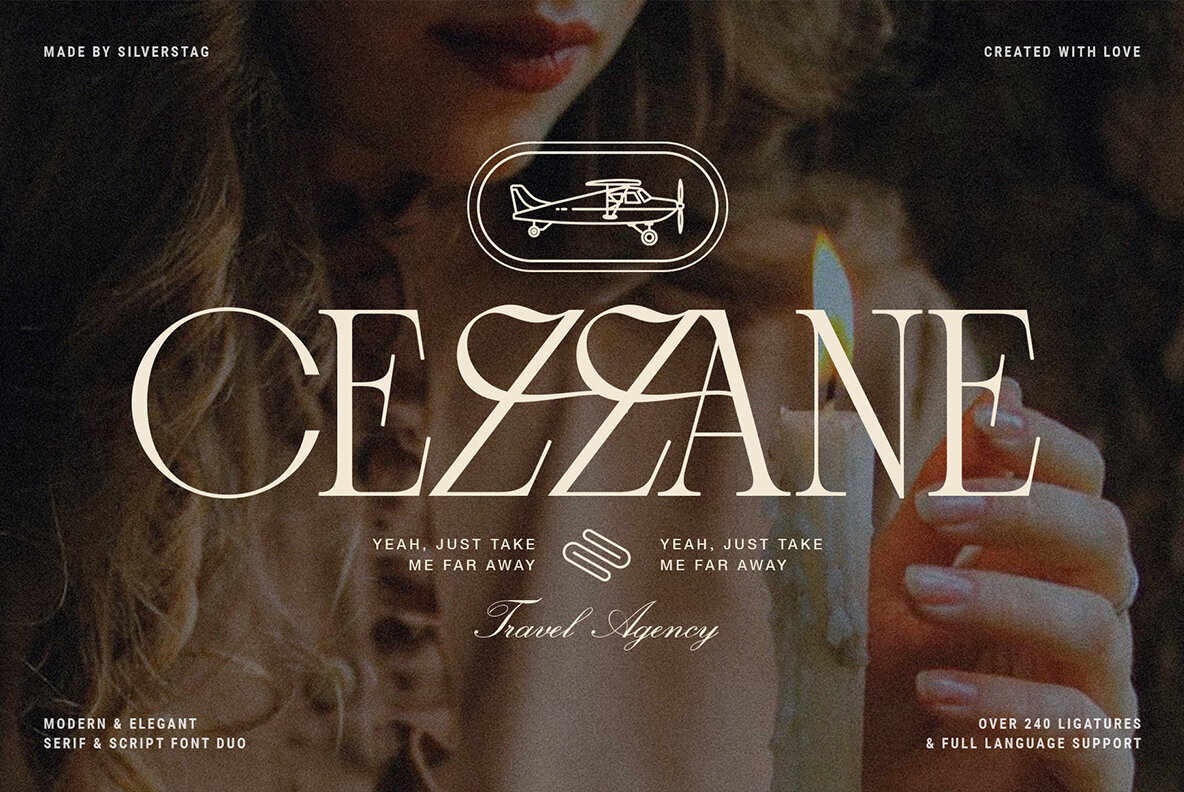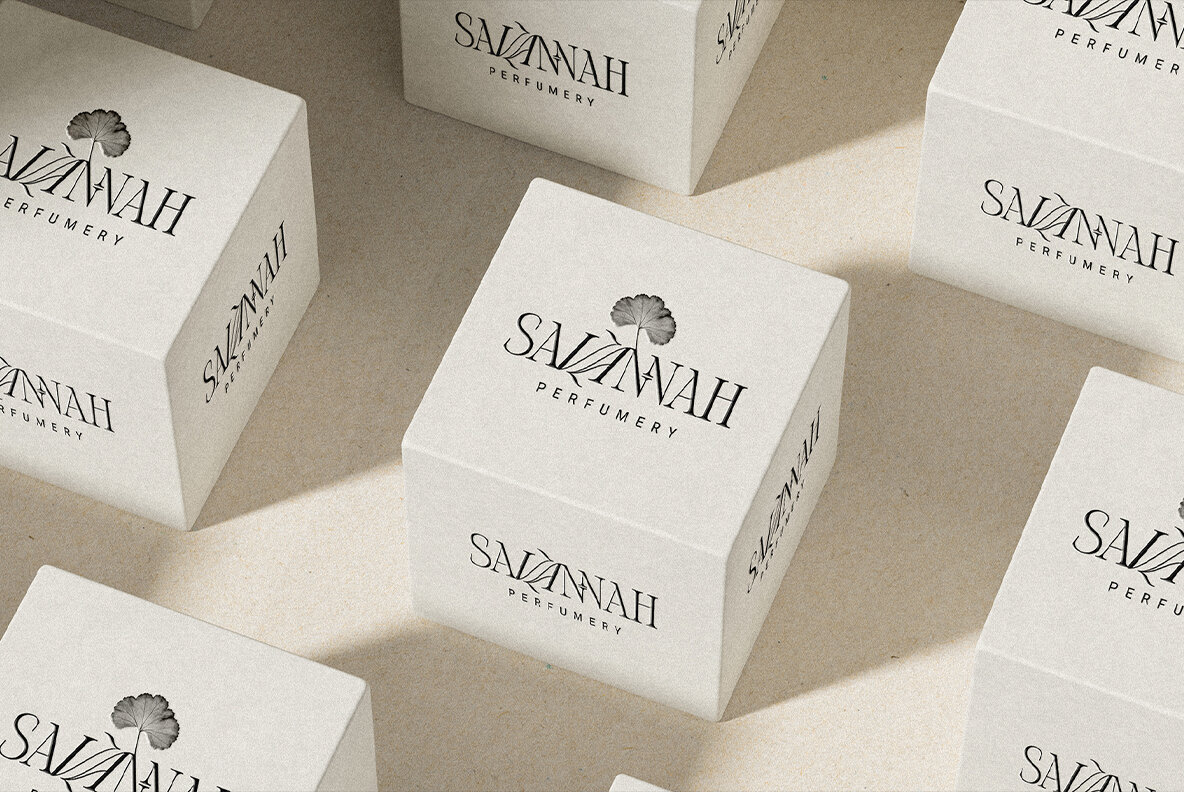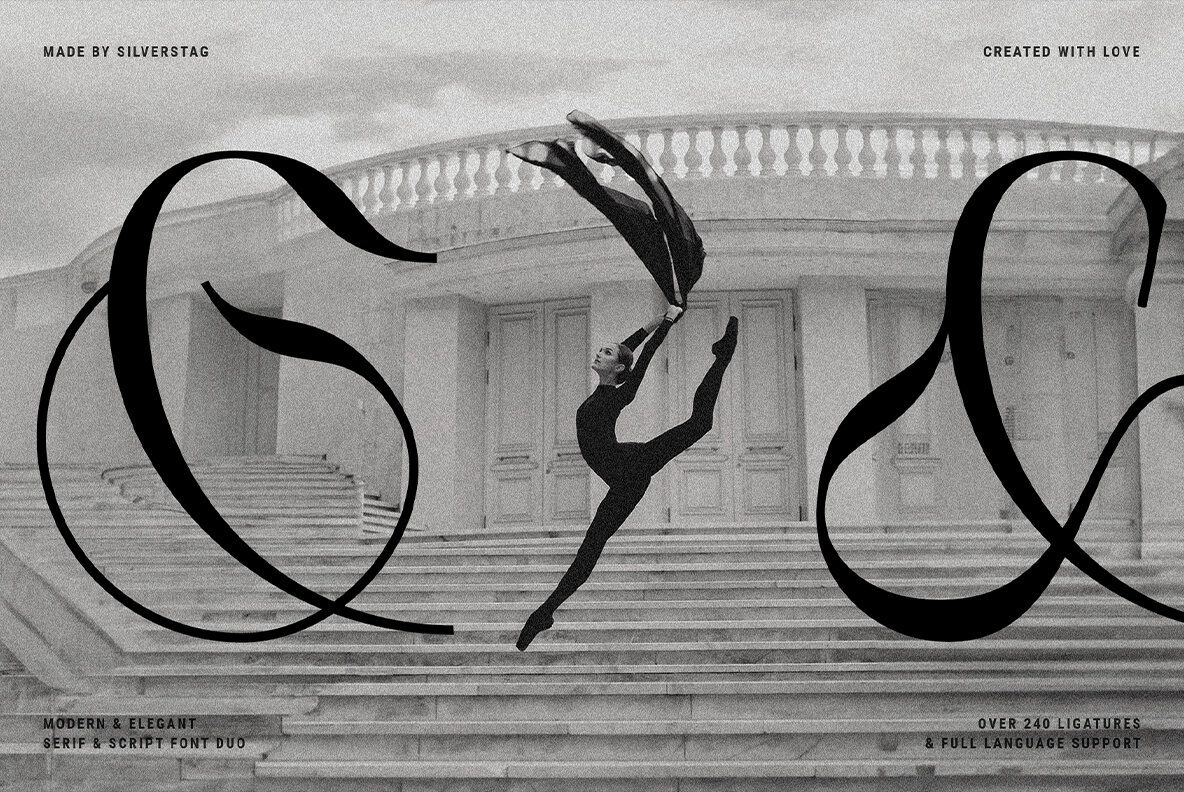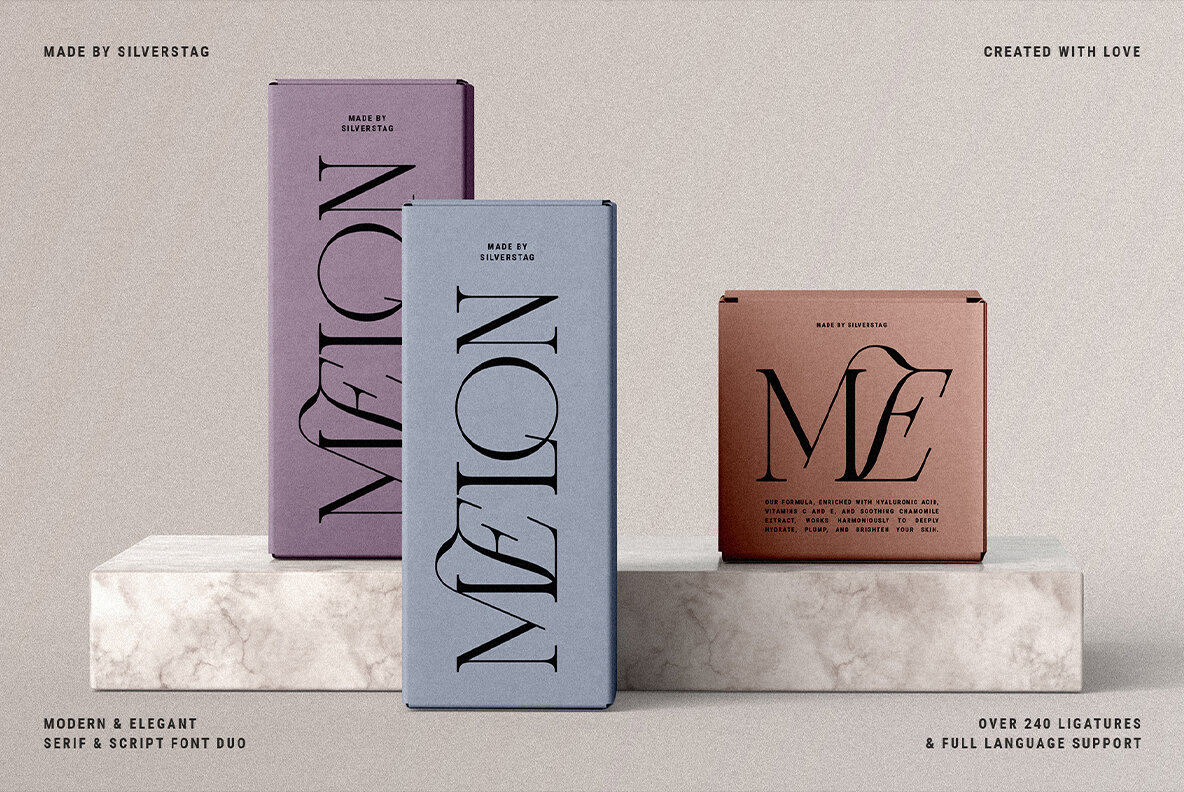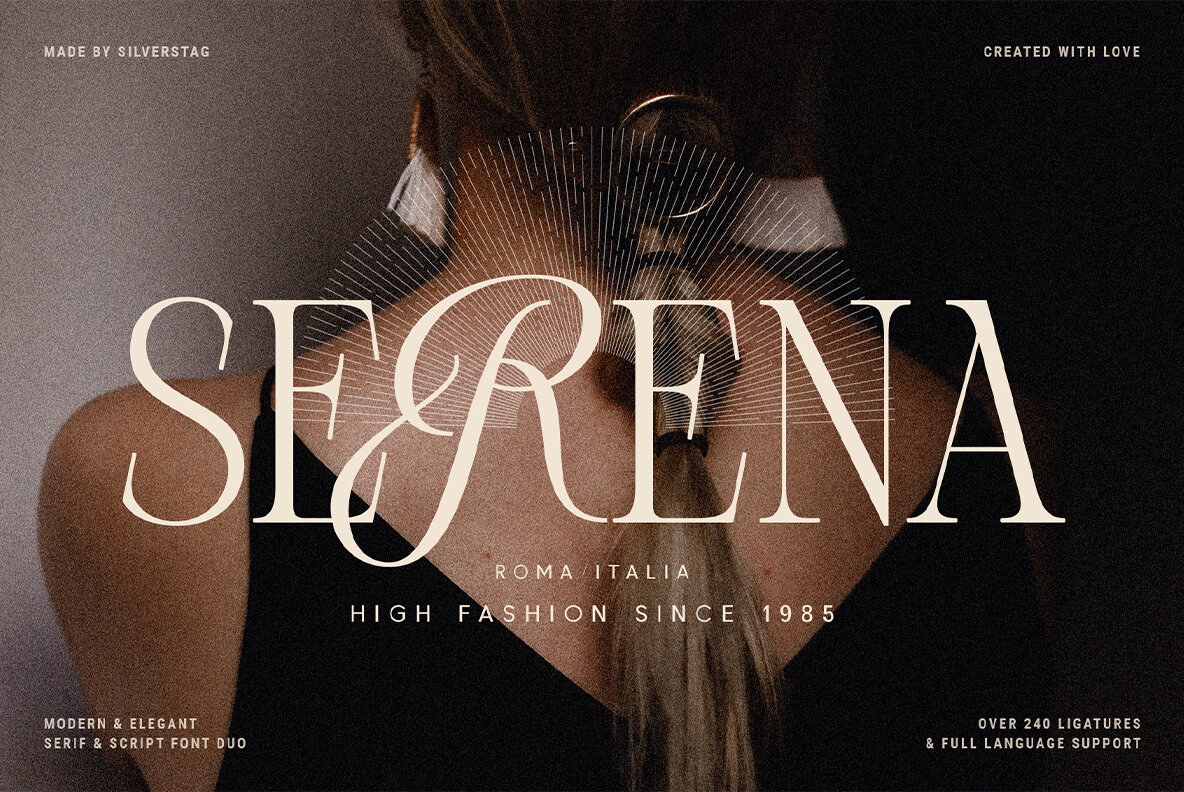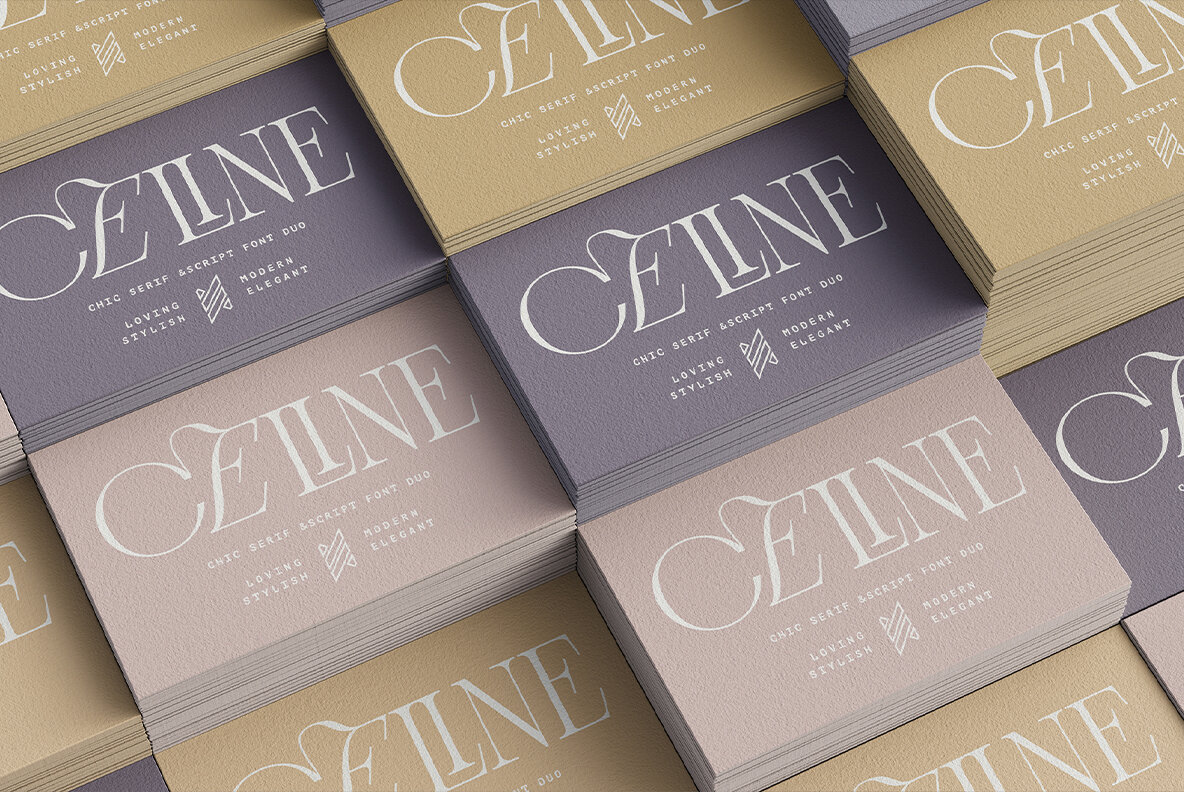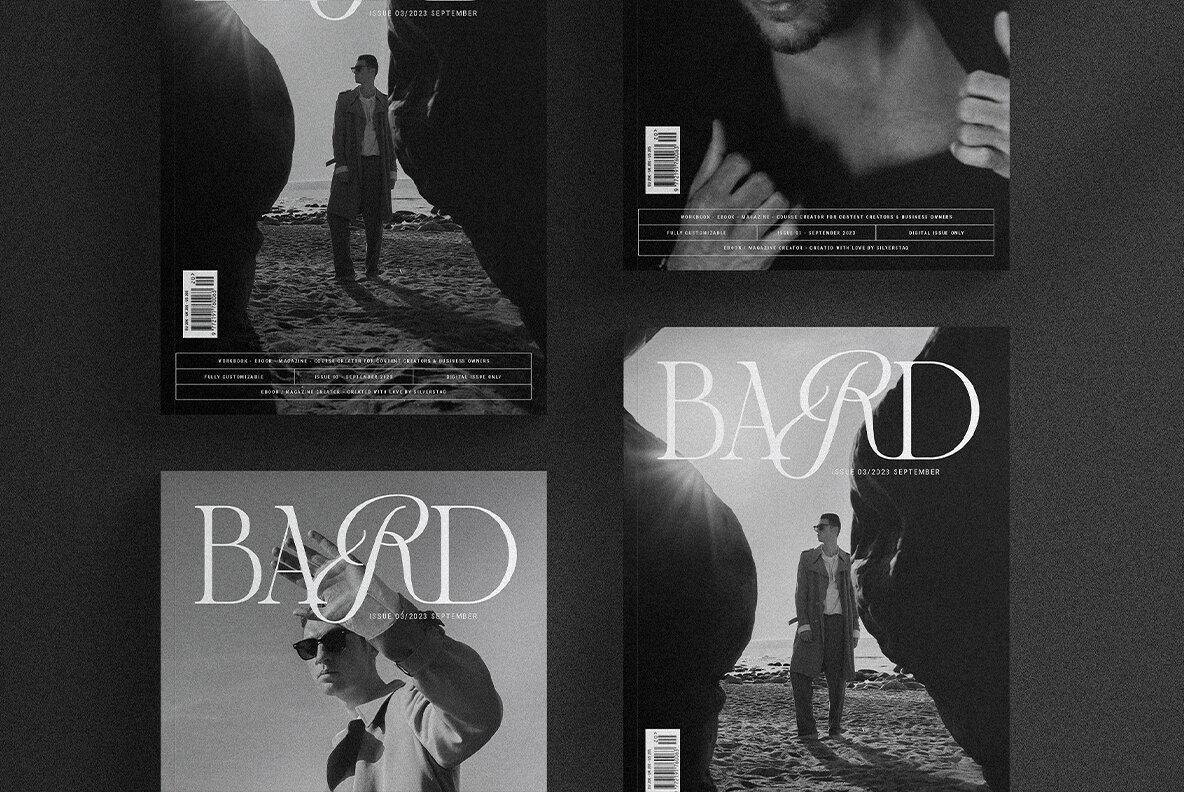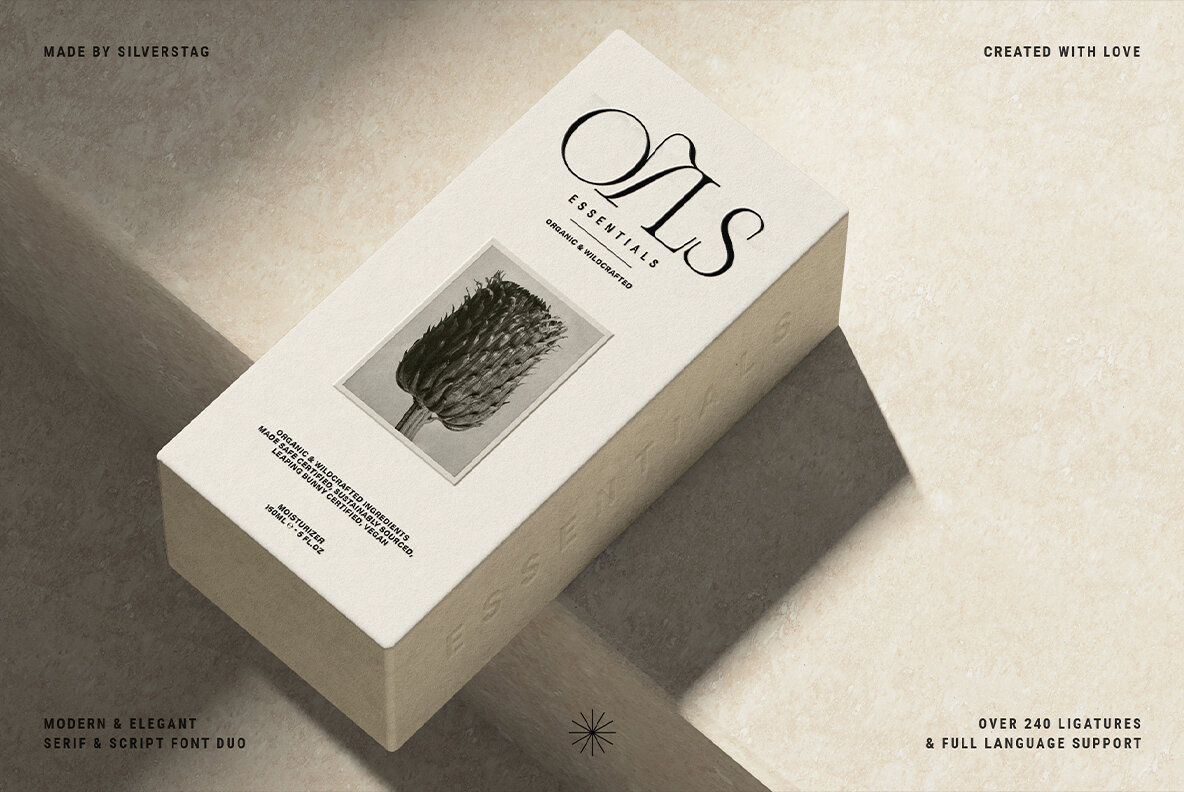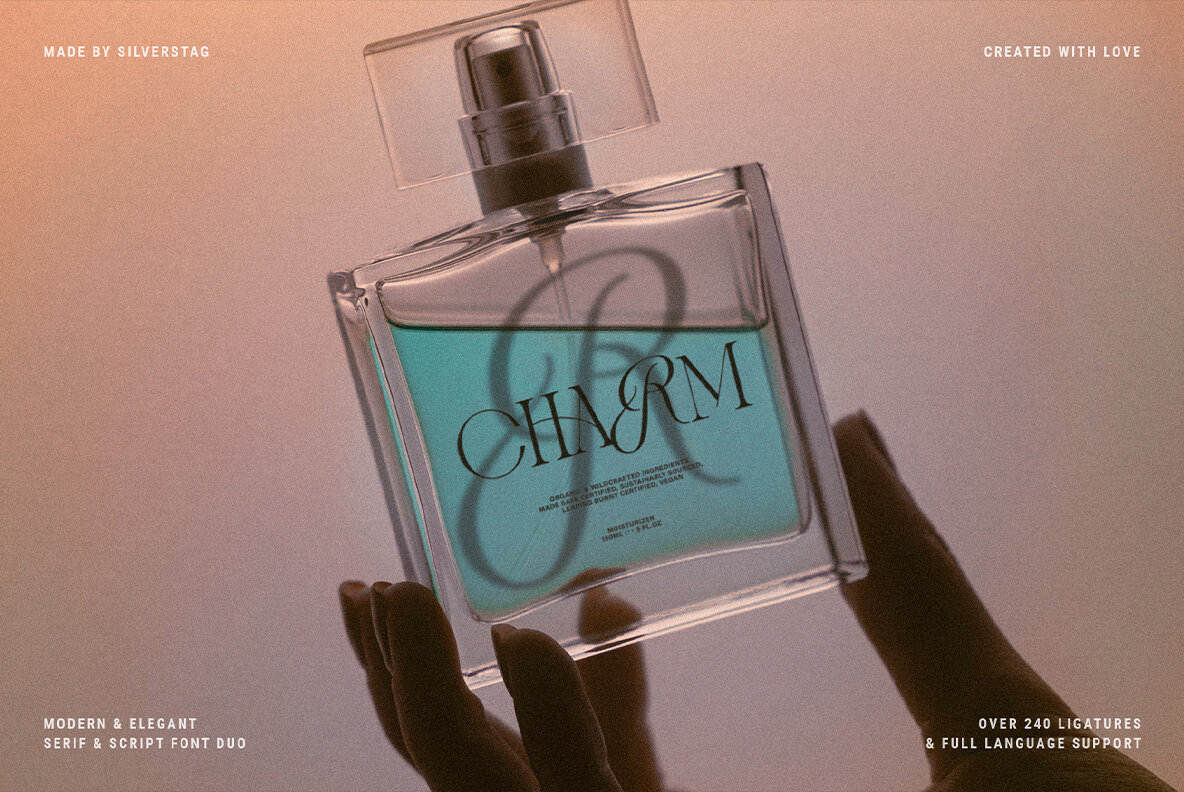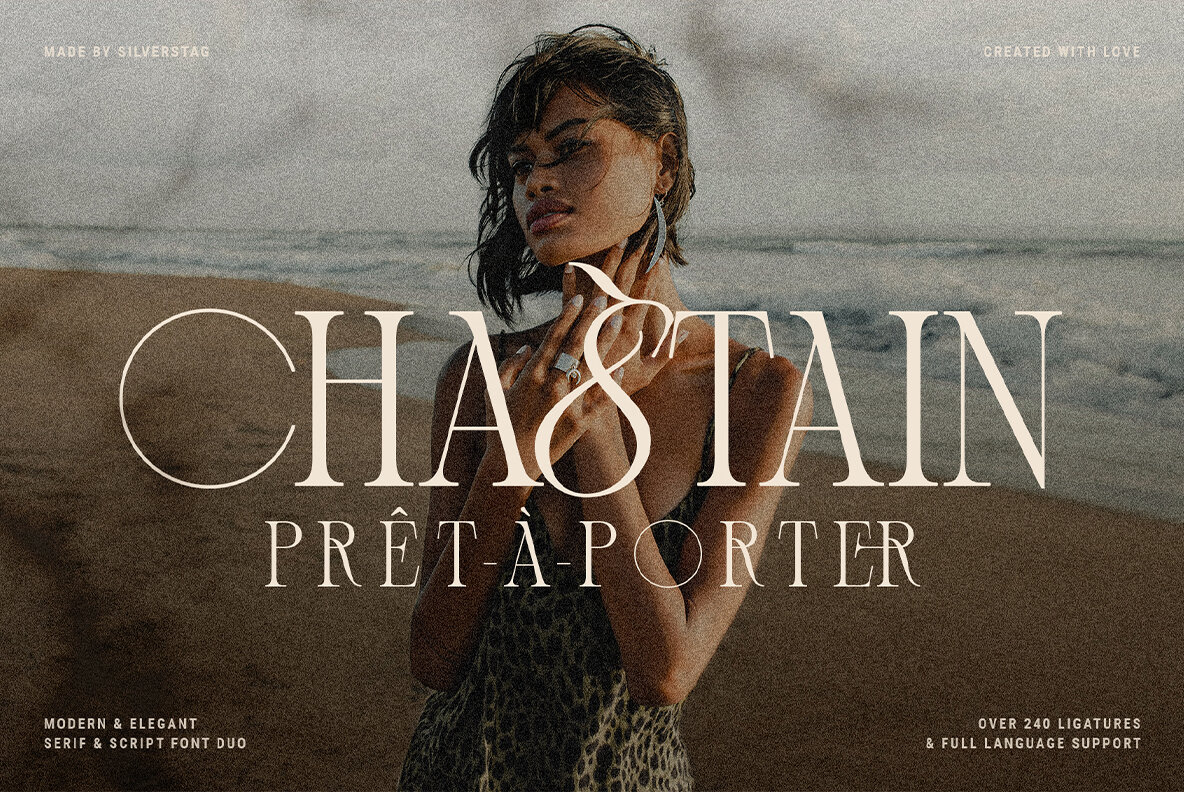
Bespoke Font
Bespoke Display Regular
Introducing Bespoke Display, a font that captures the essence of elegance and creativity by seamlessly merging the classical charm of a modern serif with the flowing grace of an elegant script. In Bespoke Display, you'll find a font that defies convention, creating a harmonious symphony between serif and script letters, crafting a unique visual language that speaks volumes. Bespoke Display is not just a font; it's a canvas for your imagination that stretches beyond the ordinary. With an extensive repertoire of over 240 ligatures and alternates, it invites you to explore uncharted creative territory. Each ligature and alternate character is a stroke of genius, waiting for your artistic touch to shape it into something extraordinary. It's a font that empowers designers to break free from the constraints of convention, allowing your ideas to flourish and your creativity to shine. This font embraces a world of expression, supporting over 92 languages and reaching across linguistic boundaries. Yet, what truly distinguishes Bespoke Display is its remarkable contrast between thin and thick lines. This striking contrast adds an aura of sophistication and drama to your designs, making it the ideal choice for logos that demand attention, branding that exudes timeless allure, and headings that command respect. Bespoke Display is not just a font; it's your partner in creating visual narratives that leave a lasting impression. Bespoke Display - Serif & Script Duo Includes: